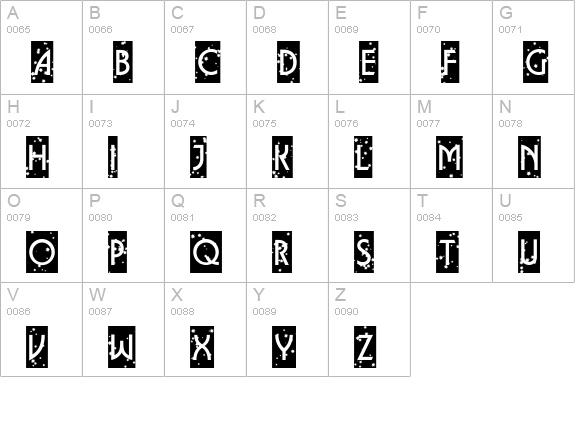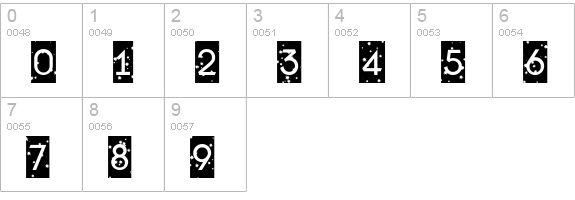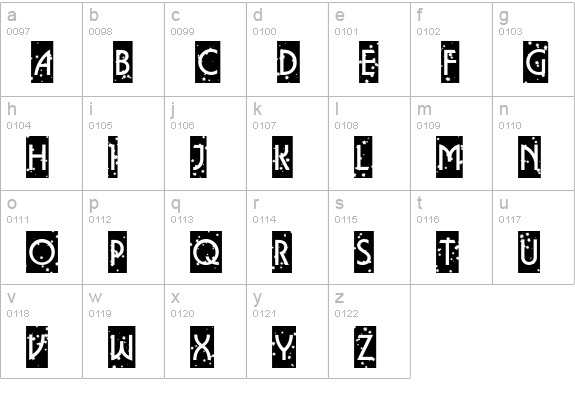
a_LancetCmStNt Font Details
Introducing LancetCmStNt font, a versatile and modern typeface that exudes sophistication and elegance. With its clean lines and sharp edges, LancetCmStNt is perfect for a wide range of design projects, from branding to editorial work. This font strikes the perfect balance between professionalism and creativity, making it a go-to choice for designers looking to make a bold statement. What sets LancetCmStNt apart is not just its aesthetic appeal, but also its accessibility. This font is available for free download at FontsMarket.com, making it easily accessible to designers and creatives around the world. Whether you're working on a corporate project or a personal design endeavor, LancetCmStNt is sure to elevate your work with its timeless charm and modern flair. Download LancetCmStNt today and add a touch of sophistication to your next design project. Let this font inspire your creativity and help you make a lasting impression with its unique style and versatility.